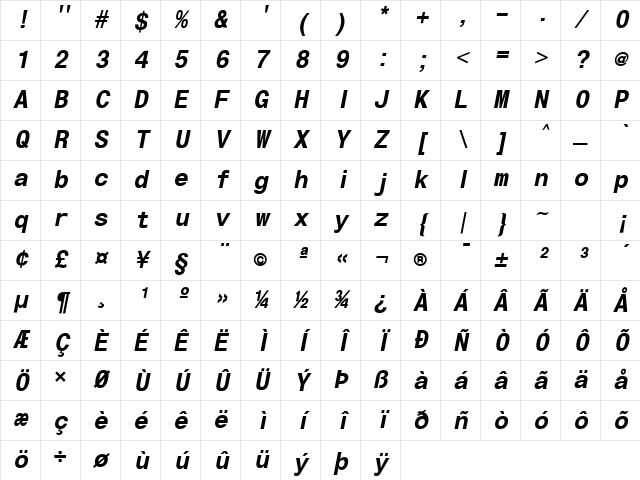
SansMono Bold-Oblique
Style: Bold-Oblique
SansMono Family
Design Context for SansMono
SansMono uses fixed-width spacing throughout, giving it the structured, systematic character associated with coding environments and technical documentation. The slanted form adds forward momentum and visual energy. Its bold stroke weight gives it real presence on the page.